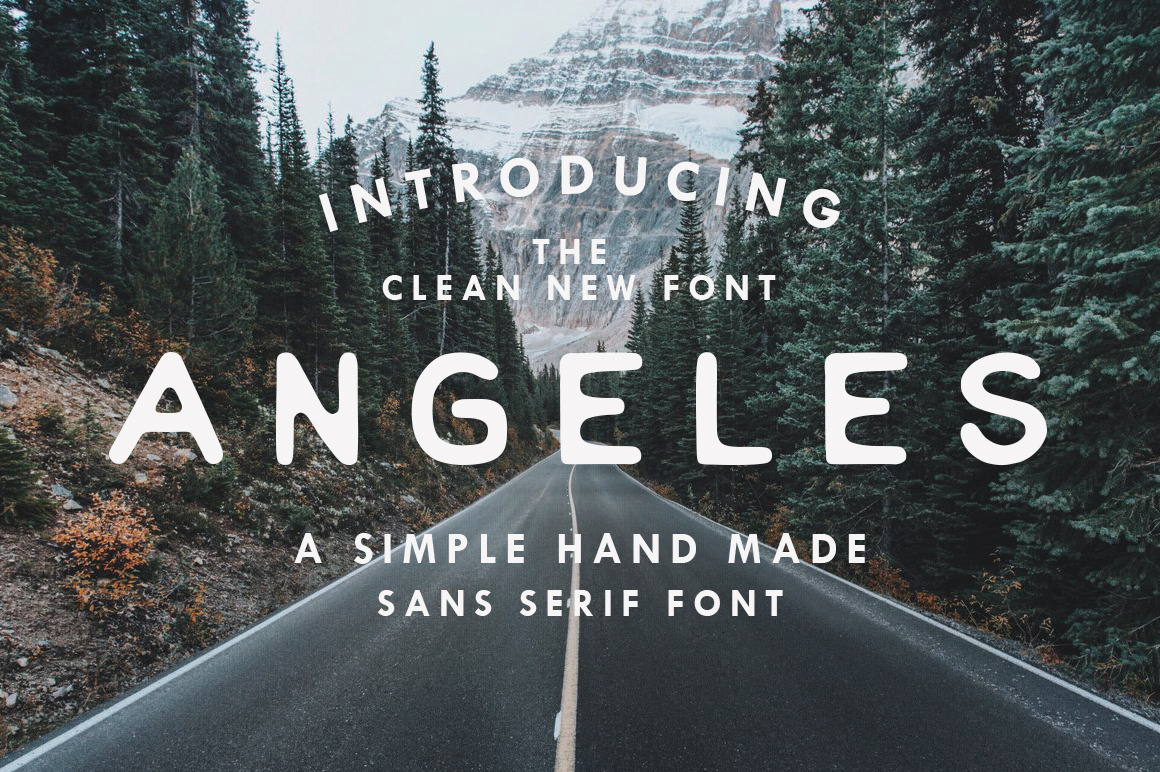
Angeles - Sans Serif Font
Angeles was the first font I created and is still one of my favourites and one that my clients continually ask me to use in their projects! This is how I know you'll love it too!
Angeles is a simple hand drawn casual sans serif font, it has round smooth edges to give you an authentic custom type vibe. It's perfect for logos, packaging design, inspirational quotes and looks great on small and large projects.
What's Included: Angeles includes uppercase characters, punctuation glyphs and numerals.